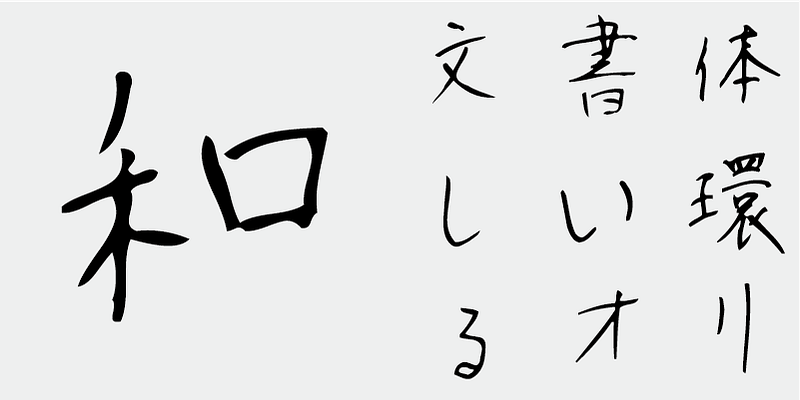
AB Tegami Font Free Download is a delicate and heartfelt Japanese-style script typeface that emulates the look of a handwritten letter—gentle, personal, and full of emotion. “Tegami” means “letter” in Japanese, and this font beautifully captures the spirit of thoughtful communication, making it perfect for stationery, wedding invitations, cultural projects, packaging, and sentimental branding.
Designed with soft strokes and natural movement, AB Tegami feels like a note from a friend or a page from a personal journal. Its authenticity and charm make it ideal for designs that aim to connect emotionally with the viewer. Despite its handwritten style, it maintains excellent legibility and elegance across different formats.